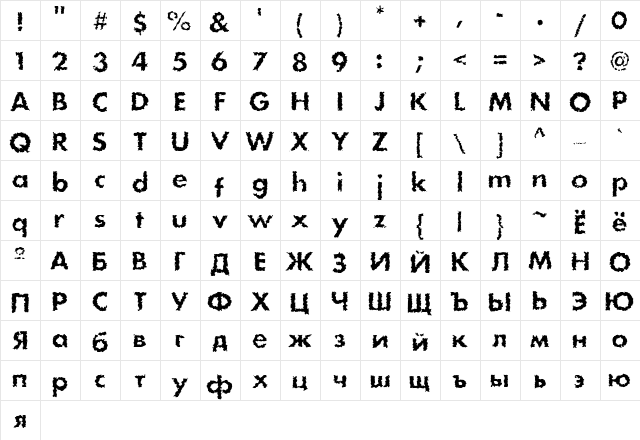
DS Stain Regular
Design Context for DS Stain Typeface
DS Stain is a composed and adaptable typeface that performs quietly and consistently across a wide range of design contexts.
Pro Tip: Pair DS Stain with a font of contrasting weight or personality to build a more expressive typographic hierarchy.